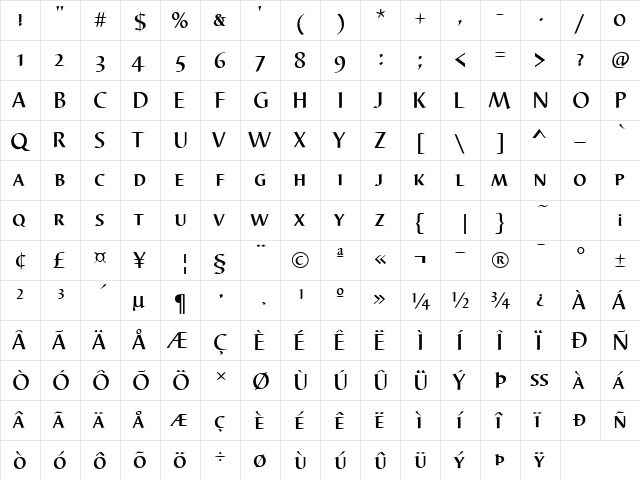
BarbedorSmc Bold
Design Context for BarbedorSmc Typeface
BarbedorSmc offers clean, dependable letterforms without strong stylistic allegiance, making it a practical choice for designers who need flexibility. Its bold stroke weight gives it real presence on the page.